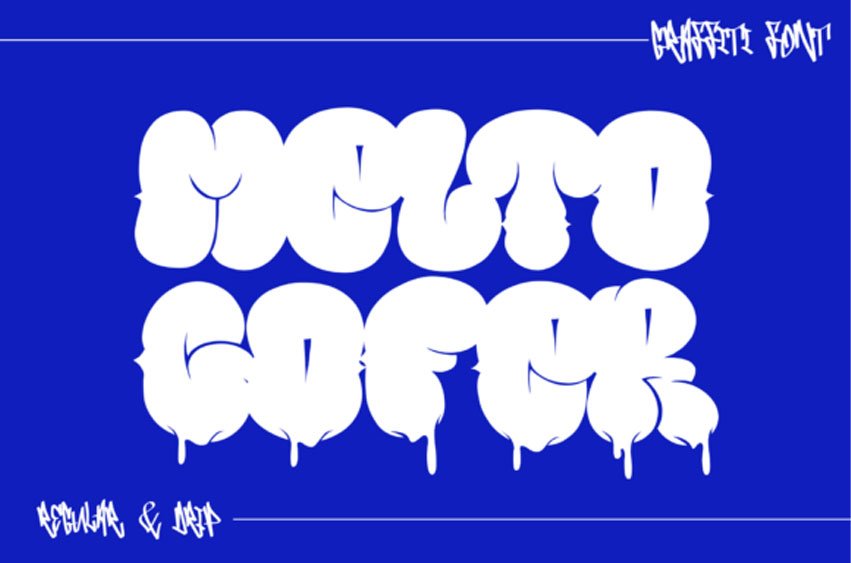
Melto Gofer Font Unleash the kinetic energy of street art in your designs with Melto Gofer, a bubble graffiti display font that comes to life on the page. Drawing from iconic throw-up graffiti styles, Melto Gofer takes bubble-esque forms and pairs them with active drips, forging a bold and dynamic aesthetic identity.
Ideal for dynamically bold applications, Melto Gofer leaves an unforgettable impression in streetwear branding, poster design, album covers, gaming graphics, hype social media content and merchandise design. Its playful edginess renders it an attractive choice for youth-centric, trend-oriented visuals with a drippy edge that seems freshly painted, enhancing the authentic graffiti aesthetic.
Designers will appreciate Melto Gofer’s versatility as a focal point in their works. Its inherent boldness is a natural attention-magnet, perfect for headlines and key visuals. Contrasted with minimalist fonts, it creates a balanced and compelling design narrative.